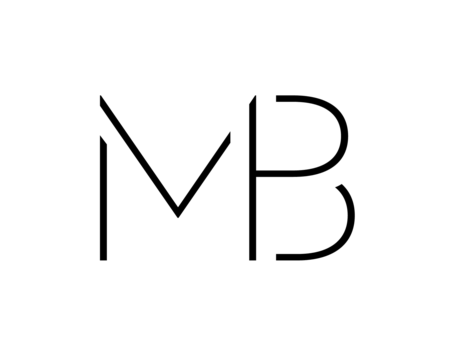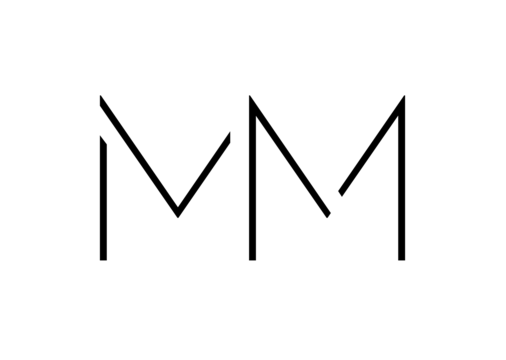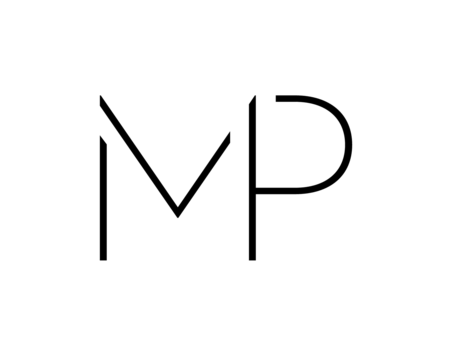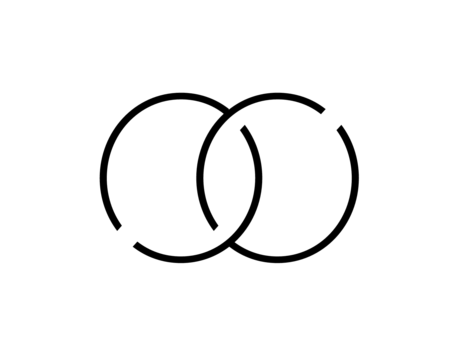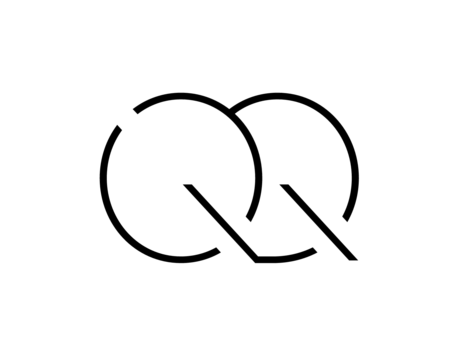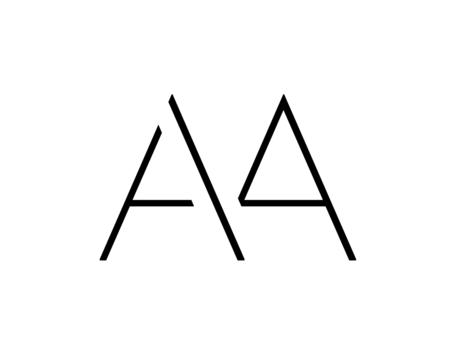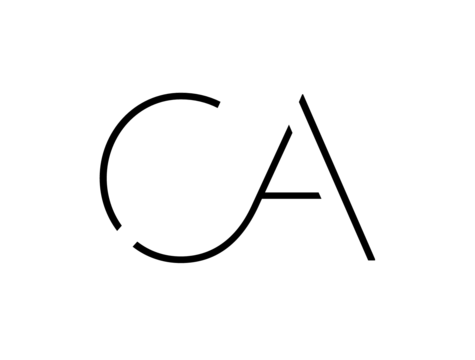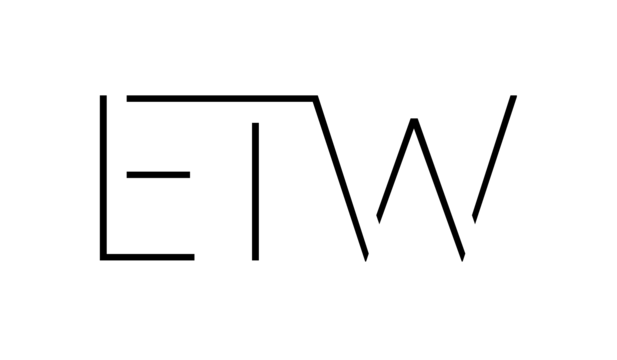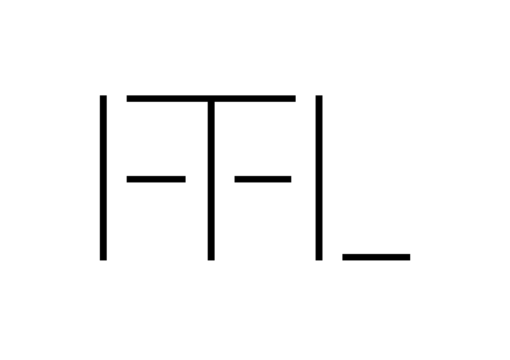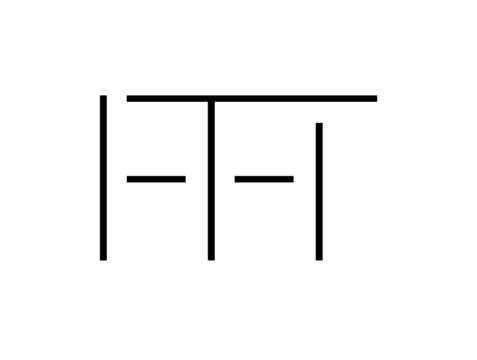
Interlink is a family of all-caps stencil typeface designed by the French designer Julie Soudanne. Its forms are monolinear, and they have the feeling of a contemporary-style sans serif. Interlink’s letters are nice and geometric, but they are not mono-width. Nevertheless, Soudanne constructed many of the characters so that they ‘feel’ like they might be equally wide, even though they are not. Aside from the stencil-optic, Interlink’s best feature is its unique series of 68 ligatures. This large set includes both two-letter and three-letter ligatures. The OpenType ‘Ligatures’ feature is so important to this design that the letters’ ability to link-up to each other is referenced in the typeface’s very name: Interlink is, basically, a palette of inter-linking letters for designers to use in display sizes. Interlink may be used very well in headlines, or for logo design. The typeface may be paired with virtually any kind of body text fonts, be these serif or sans.
Family Name | Interlink |
Designer(s) | Julie Soudanne |
Release Date | May 9, 2018 |
Available Style | Regular, Medium, Bold |
Classification | Display, Sans |